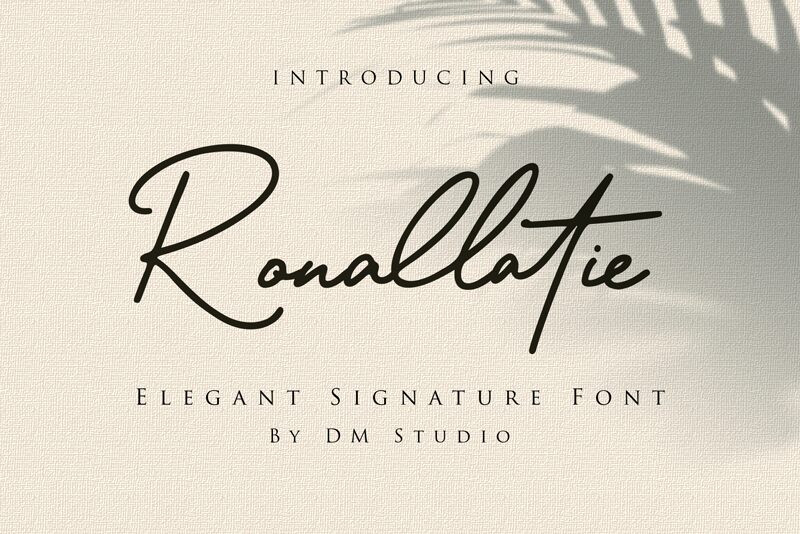
Meet Ronalltie, an elegant signature font created by Dm Letter Studio - Dimas Prasetyo. With its light weight, Ronalltie exudes sophistication and refinement, making it perfect for projects that require a touch of elegance.
Its fluid strokes and graceful curves make it ideal for wedding invitations, high-end branding materials, and luxury product packaging. Whether you're designing a logo for a luxury fashion brand or creating a stylish greeting card, Ronalltie will add that extra touch of class to your project.
Elevate your designs with the timeless beauty of Ronalltie.